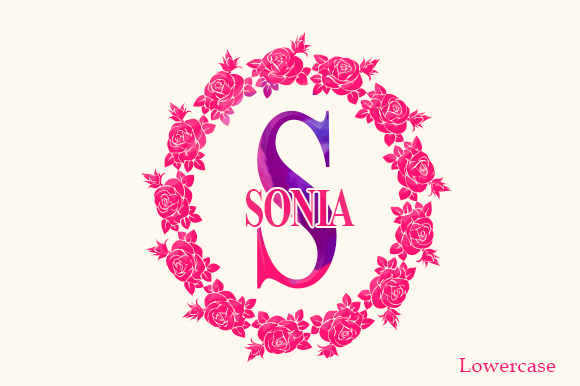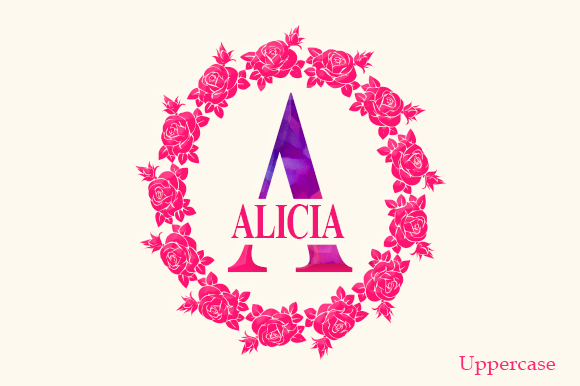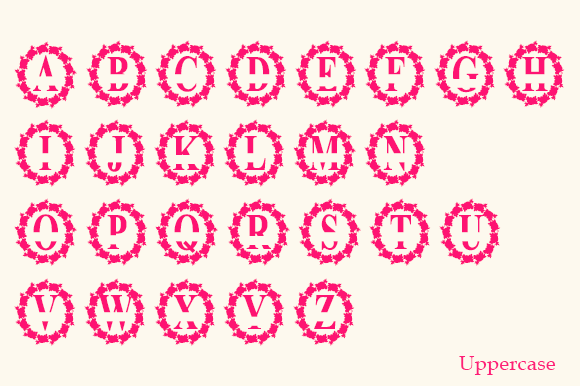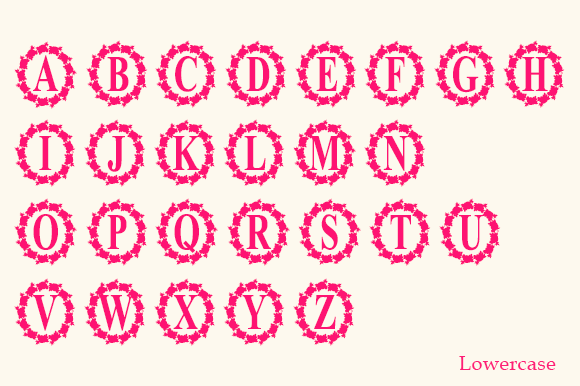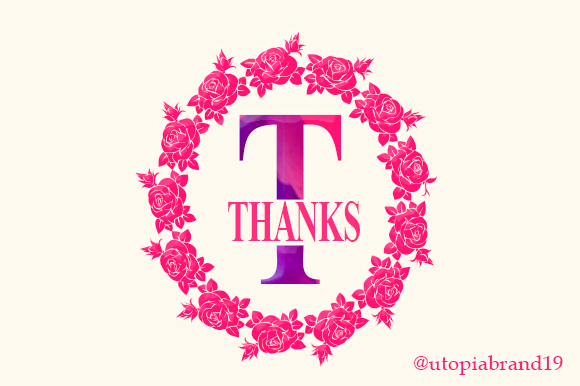
Introduction to Rosena Monogram Font
Imagine you’re planning the perfect wedding, and you’re on the hunt for that special something to make your invitation truly unforgettable. You’re scrolling through design resources, and suddenly, you stumble upon a beautiful, elegant font that makes your heart skip a beat – the Rosena Monogram Font.
As a designer, you know how important it is to have access to high-quality design resources that can elevate your creative projects. The Rosena Monogram Font is a stunning addition to any design library, offering a unique and romantic flair that’s perfect for wedding invitations, social media posts, and more.
With its authentic feel and beautiful ornaments, this font is a game-changer for designers looking to add a touch of sophistication to their work. Plus, with a transparent background, it’s easy to customize and integrate into your designs. Whether you’re looking for a free download or a versatile design resource, the Rosena Monogram Font is sure to delight.
Key Features of Rosena Monogram Font
- Designed with a unique, elegant style that makes it perfect for various applications
- Monogram font ideal for use in logos, branding, and other creative projects
Honest Review: Rosena Monogram Font
I recently stumbled upon the Rosena Monogram Font while searching for a design resource for a creative project, and I must say I’m quite impressed. The font is a high-quality addition to any design library, and it’s available for free download.
- ✨ Unique and elegant design that adds a touch of sophistication to any project.
- ⚠️ Limited character set may require additional design work for more extensive projects.
- ⚠️ Some users may find the font’s complexity overwhelming for simple designs.
Overall, I’m quite pleased with the Rosena Monogram Font. Its unique design and high-quality format make it a valuable addition to any design library. While it may have some limitations, it’s definitely worth considering for your next creative project.
The Rosena Monogram Font is commonly used for creating logos, business cards, and other marketing materials. Its elegant design and high-quality aesthetic make it perfect for a variety of creative projects, from wedding invitations to corporate presentations.